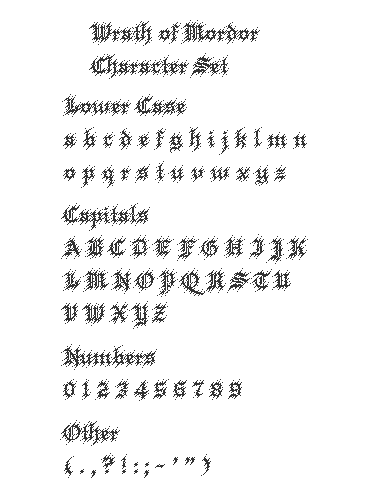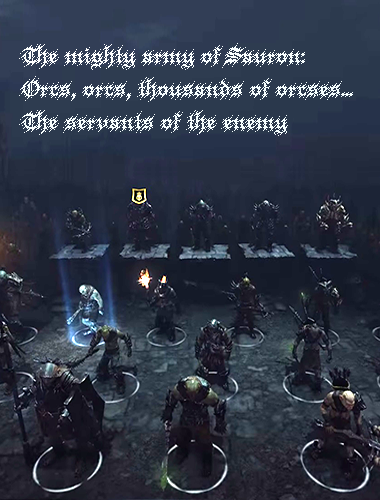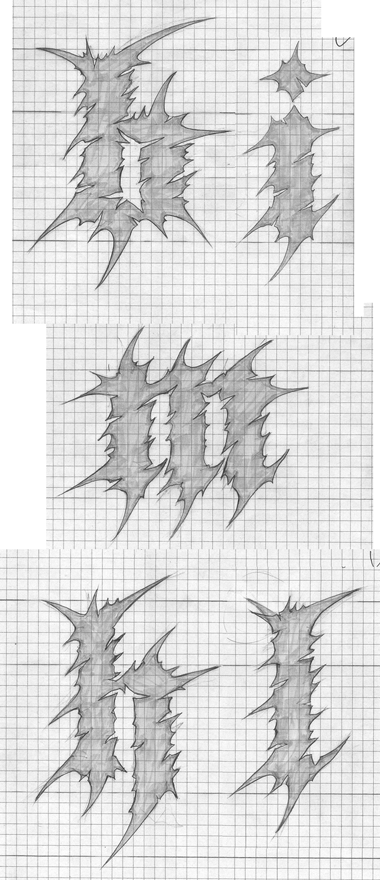
• This font was inspired by the works of Christophe Szpajdel (Lord of the Logos, 2010, Die Gestalten Verlag), as well as by the film trilogy and the following game titles (e.g. Middle-earth: Shadows of Mordor, Warner Bros. Interactive Entertainment, 2014) based on Tolkien's epic masterpiece, The Lord of the Rings. Given the game theme, and the 48 bricks vertical limit, I thought more or less around pixel art, or pixel fonts. This is my endeavour to make a spiky blackletter in Szpajdel's black metal style that evokes the terror of Mordor at pixel level. This font has been extensively tested for best kerning, yet some issues might have remained unresolved.
I am with Upixel - and I like your interpretation and implementation of epic Tolkien style
In return, I'd like to share a few sketches with you to shed light on the full scope of this project. Project Mordor, as I call it, started its life on square paper. The sketches were made with a full size font in mind. The x-height was set to be 24, the ascenders and descenders were to be 12 - 12 bricks, respectively. One square on paper corresponds to 2x2 FS bricks. The resolution of this matrix could be doubled by the use of composite bricks. However, even at this early stage I realised, I needed some extra vertical space to accommodate the overhanging bits of a few especially large glyphs. As a result, I had to change course, and downsize the letters, and make a pixel adaptation. I've never done anything remotely similar before. As for how much I succeded: the judges are out there.
@Frodo7: Hope you will bring out the actual sketched version in another font.
Part Frodo, part Gandalf: you are a wizard with these pixels. The underlying Blackletter is quite an achievement on a small grid like this. The layer of pixel dust adds a unique diagonal dynamic to that. Wonderful!
Excellent pixel typeface and excellent sketches.
@naveenchandru: Yes, that's the plan to make a non-pixel version of the Mordor theme. However, don't expect to see it any time soon, for the task may require a huge amount of time, what (I regret to say) I seldom have.
@geneus1: Thank you. The release date is TBA. But seriously, I just don't know yet. I've finished the lower case, but they need some redesign, as they don't really work in concert in text. This was not a problem with the pixel version, as the pixel-spikes perfectly overlapped each other between two letters. Well, they were designed that way so as to avoid clutter. I may have to design alternates for beginning and ending words. I have sketches for the capitals too, but they need more refinement.